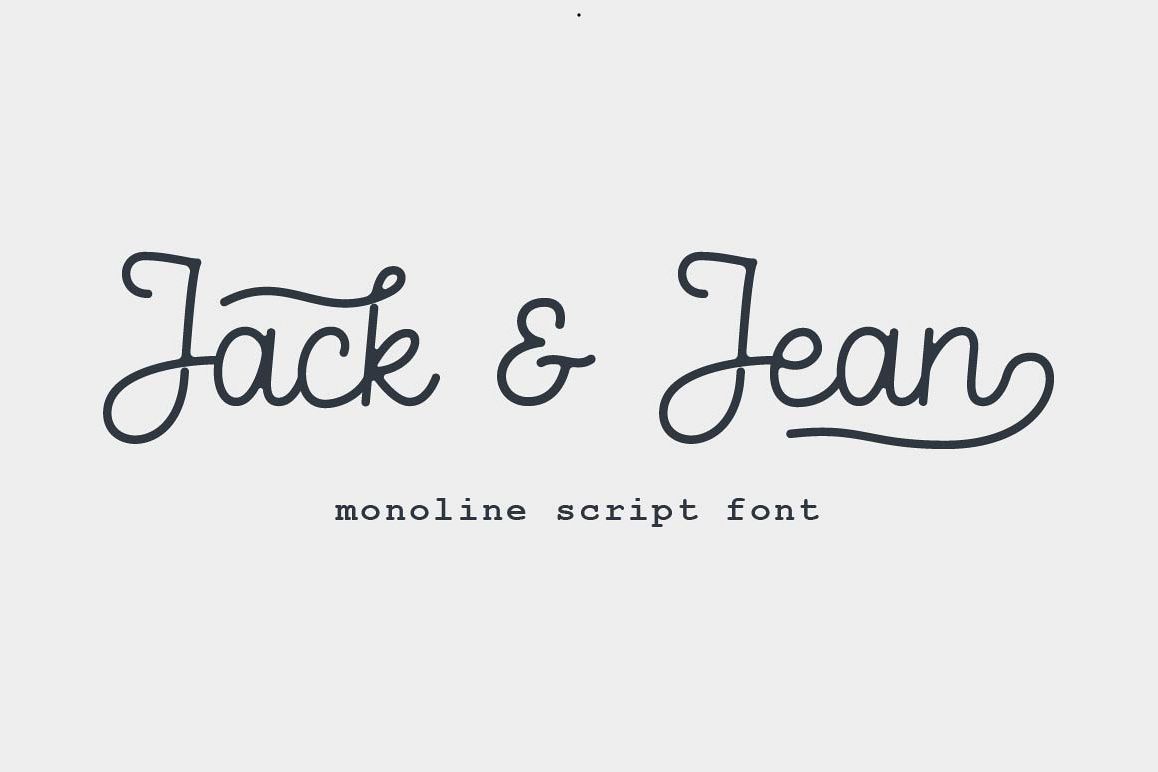
Jack & Jean Script
Jack&Jean
Jack & Jean is beautiful monoline script font, perfect for logo design, branding, poster, wedding invitation an much more.
• Ligatures and Stylistic alternate